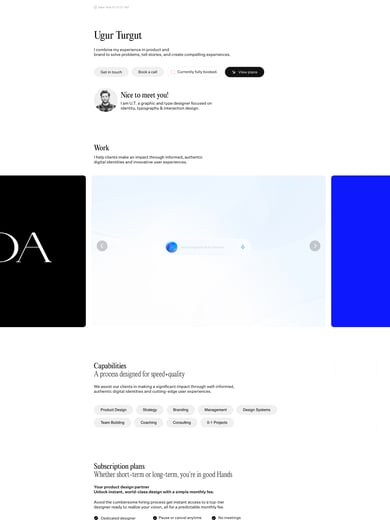
Editorial New
Editorial New is a serif with pronounced contrast and an expressive editorial voice. Compare it in prominent titles or short passages, with particular attention to the fine strokes on mobile.